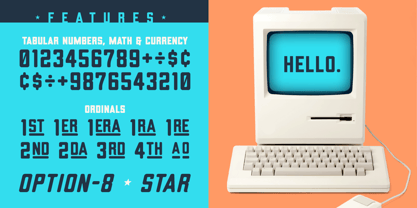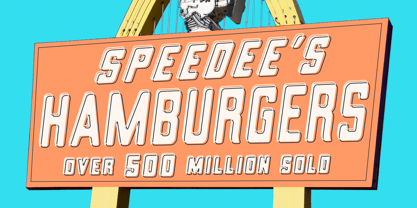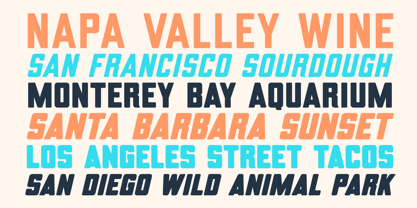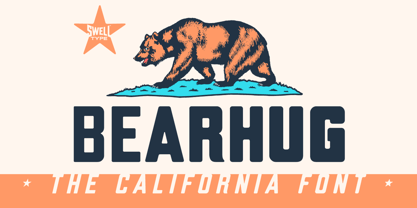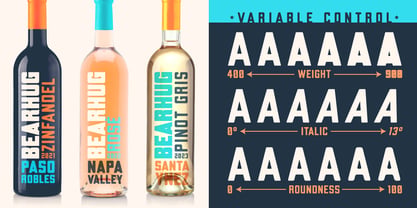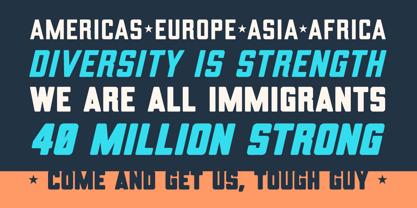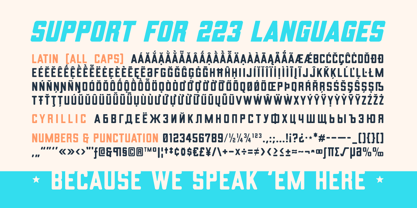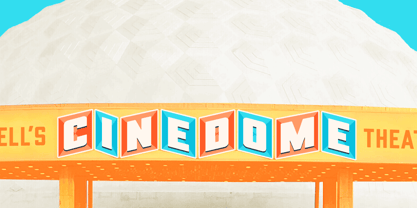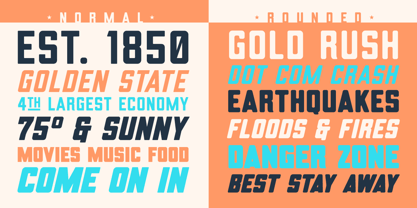
Bearhug
by Swell Type
Bearhug is a font based on the lettering of the California flag. On first look, BEARHUG might appear to be your everyday tall, bold sans, but there's unique twists like the flair in the leg of the R and softly rounded corners.
Bearhug features weights from Regular to Heavy (with Italics), Rounded versions of each, and a Variable Font to dial in your unique settings.
Building on decades of experience as a designer of fonts for comic books, video games, TV shows and movies, John Roshell's Swell Type takes inspiration from the real-world signs and scenery of California, presenting fun, friendly, functional fonts inspired by everything from the Gold Rush and fruit-crate labels to surf and skateboard culture, Silicon Valley, aerospace industry and entertainment biz -- all with the lively energy and fun for which his creations for the comic lettering studio Comicraft are known and loved.